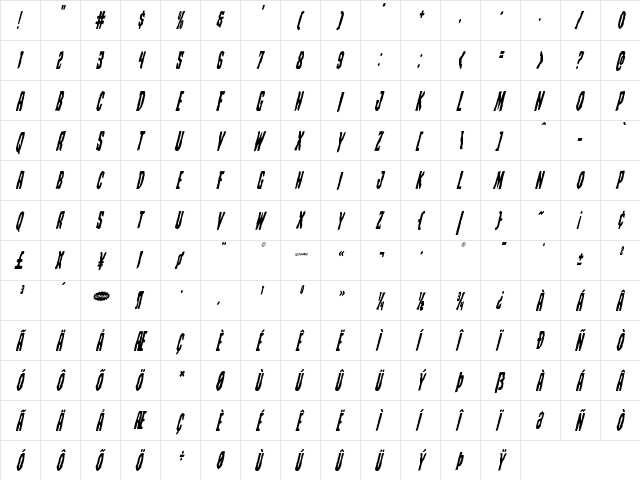
Creepy Crawlers Condensed Italic Condensed Italic
Design Context for Creepy Crawlers Condensed Italic Typeface
Creepy Crawlers Condensed Italic carries an unsettling edge — its distorted letterforms are built to unsettle, perfectly suited to horror, Halloween, and dark creative work. Its italic angle brings a sense of urgency and motion to the letterforms.
Ideal for Halloween projects, horror film titles, haunted house signage, and dark editorial design.
Font Pairing: Pair with a clean neutral sans-serif for body copy to let Creepy Crawlers Condensed Italic's character lead without overwhelming the composition.
Pro Tip: Creepy Crawlers Condensed Italic works best as a headline or focal element. Pair it against plain, neutral body text to amplify the contrast.